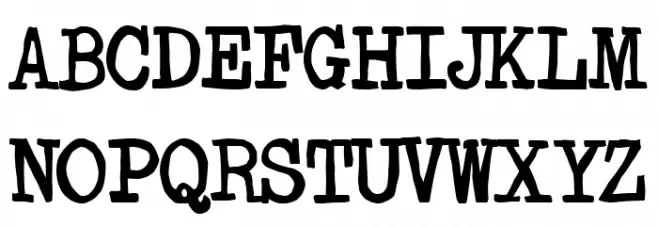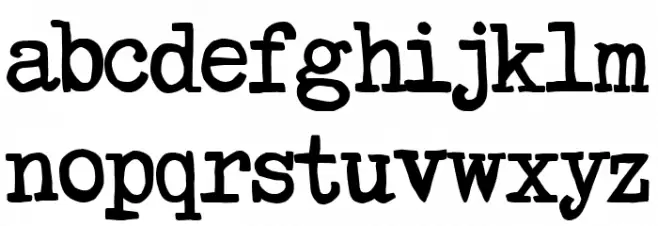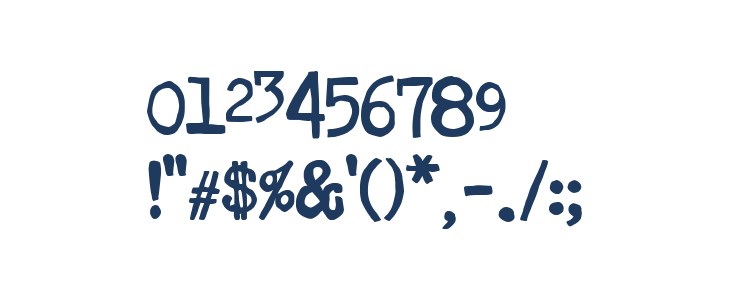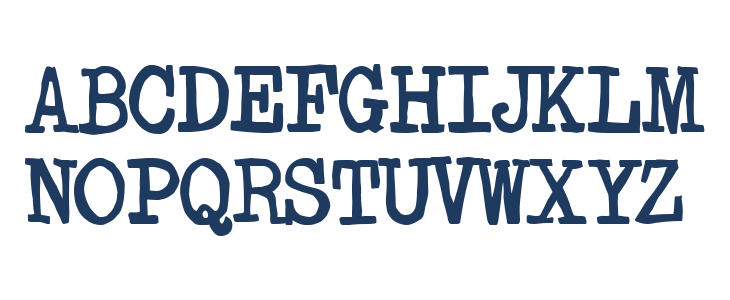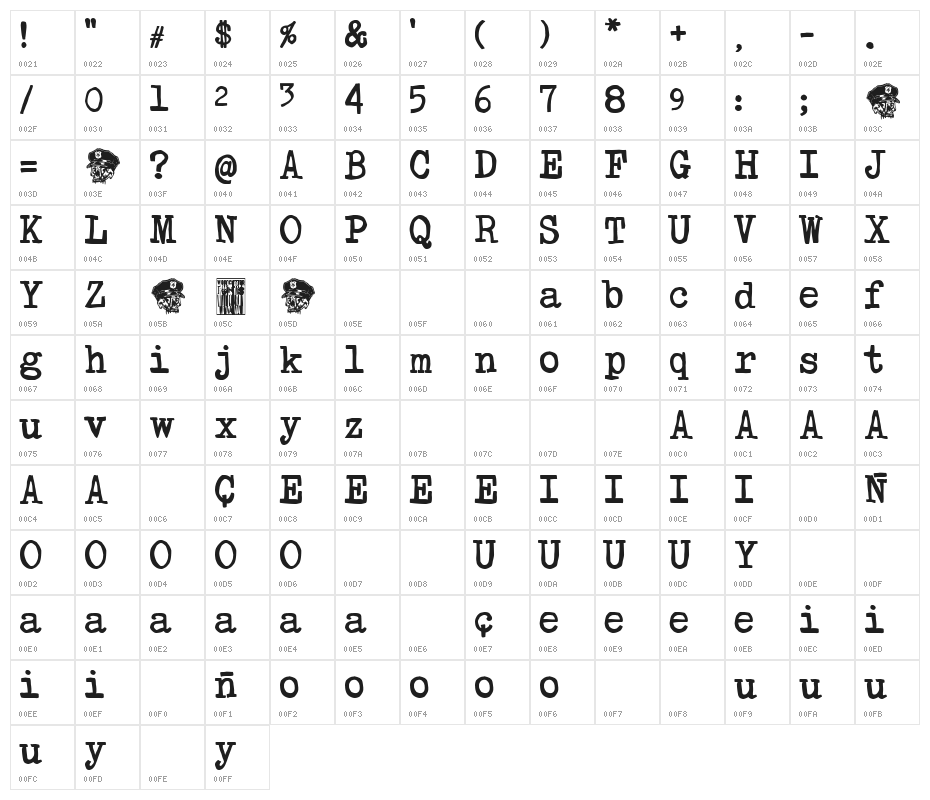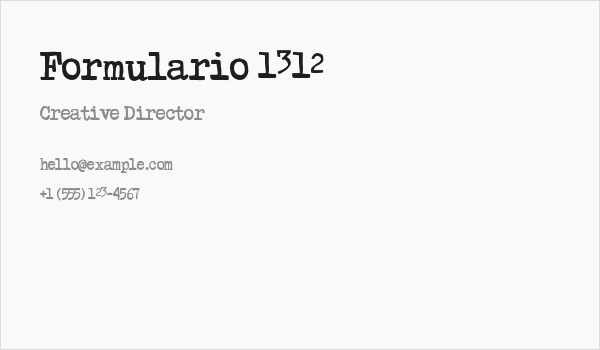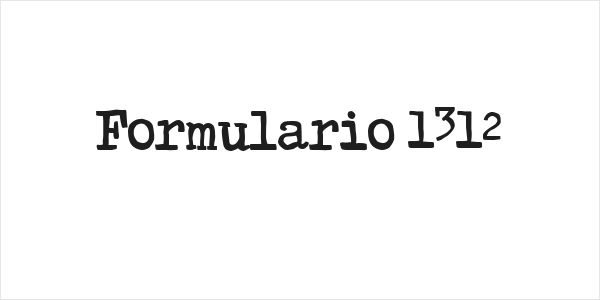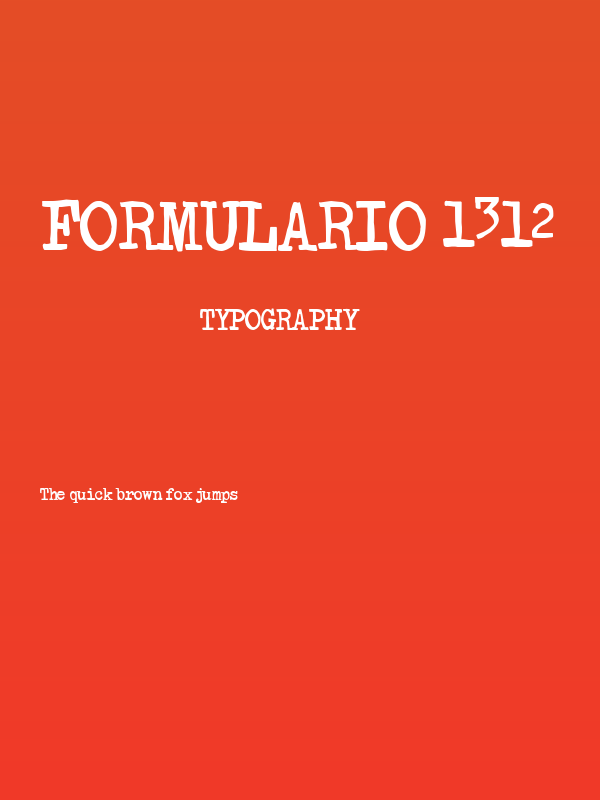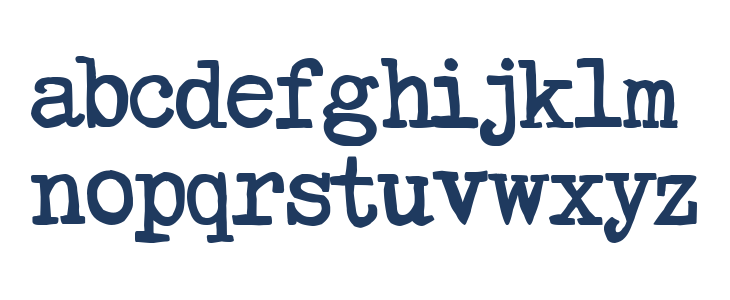
Formulario 1312 Font
Formulario 1312 Description
A playful slab serif font with irregular, hand-drawn letterforms and slightly uneven stroke widths, giving it a whimsical and informal appearance. The characters have pronounced serifs and a bouncy baseline, adding to its casual, friendly style.
Playful, hand-drawn slab serif with irregular, whimsical shapes.
- Font: Formulario 1312
- Proposed Projects: Children’s books, posters, greeting cards, playful branding, educational materials.
- Category: Slab Serif
- Overall Style: Decorative, Playful, Hand-drawn
- Use Case: Headlines, Posters, Children's materials, Informal branding